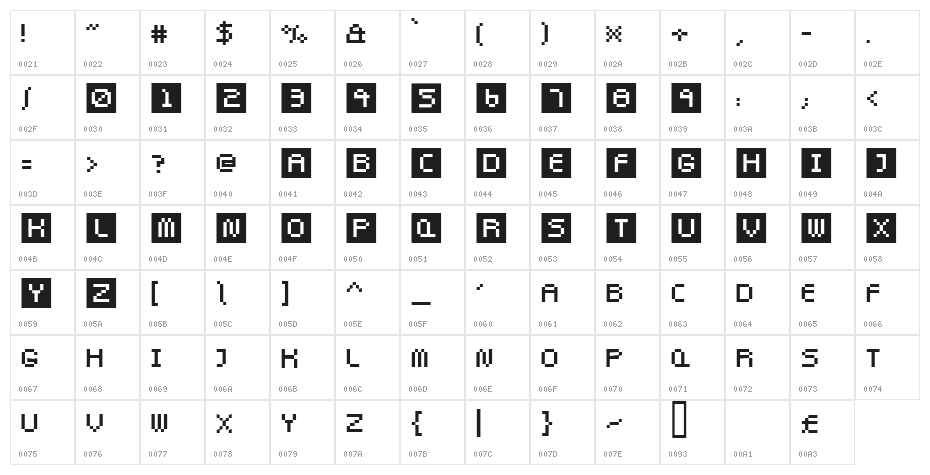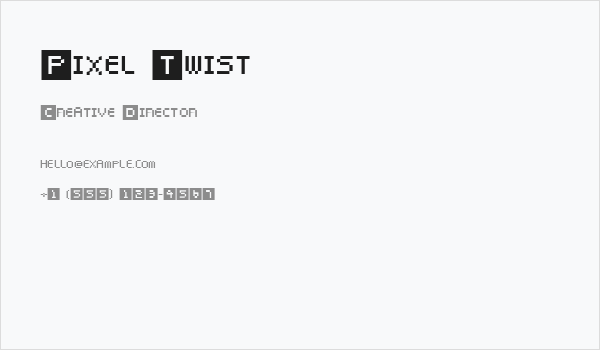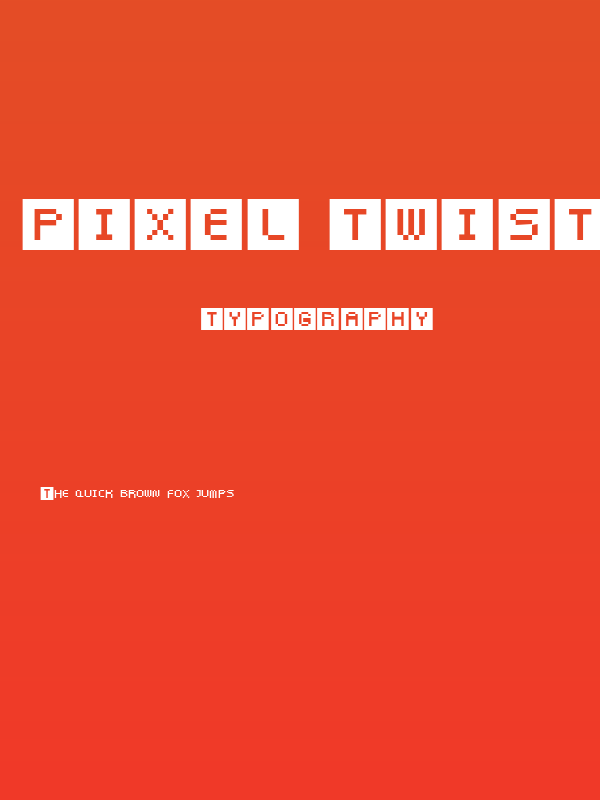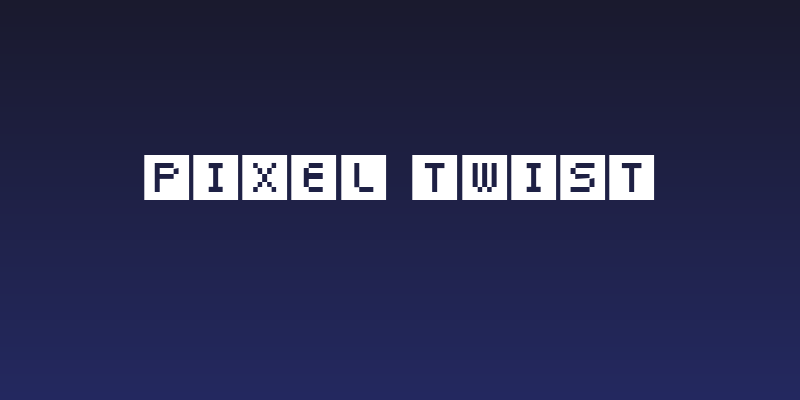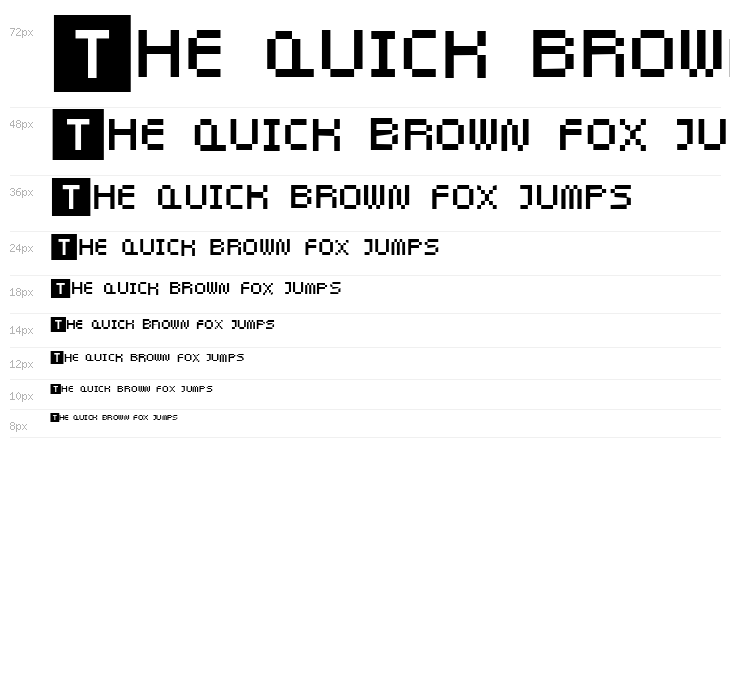
Pixel Twist Font
Pixel Twist Description
This font features a bold, pixelated style reminiscent of early digital displays and video games. Each character is constructed with a grid-like precision, giving it a blocky and geometric appearance. The uppercase and lowercase letters maintain a consistent height, enhancing the uniformity and readability of the text. The numbers and special characters follow the same pixelated design, ensuring a cohesive look across all elements. This font is perfect for projects that aim to evoke a sense of nostalgia or a retro digital aesthetic. Its distinct style makes it ideal for headlines, logos, and any design that requires a strong visual impact.
| Overall Style | Retro, Digital |
| Proposed Projects | Video game graphics, retro-themed posters, digital art, and tech-related branding. |